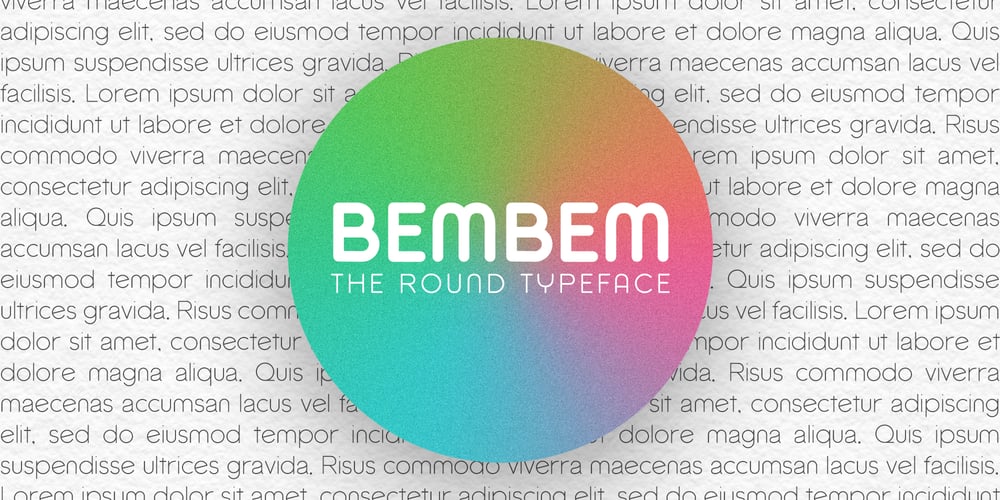
Bembem
Bembem font
Bembem Font Family was designed by Richard Khuptong and published by Richard Khuptong. Bembem contains 6 styles and family package options. Bebem the round typeface, a casual, fun and happy fonts that work both as a body copy or a headline copy.